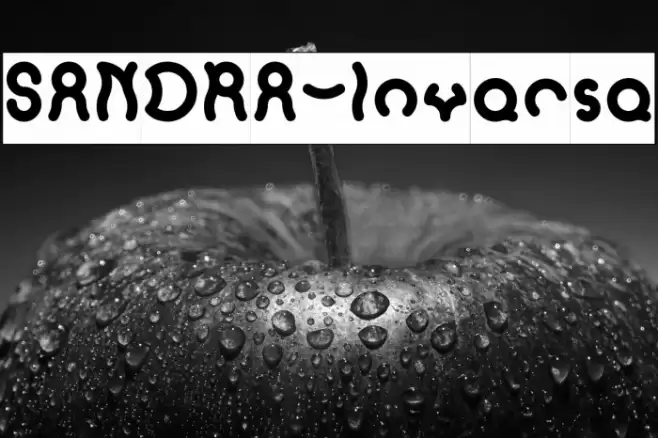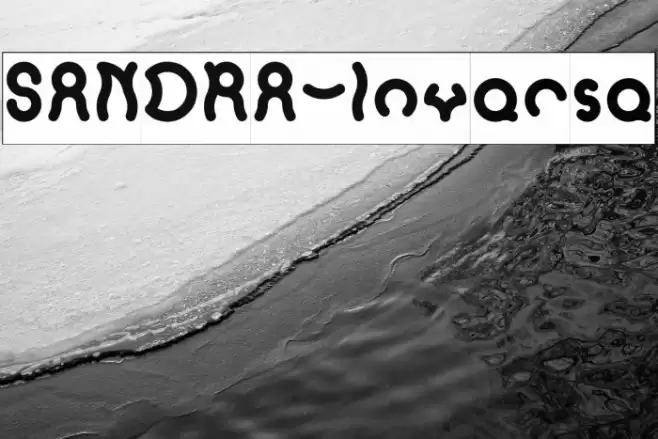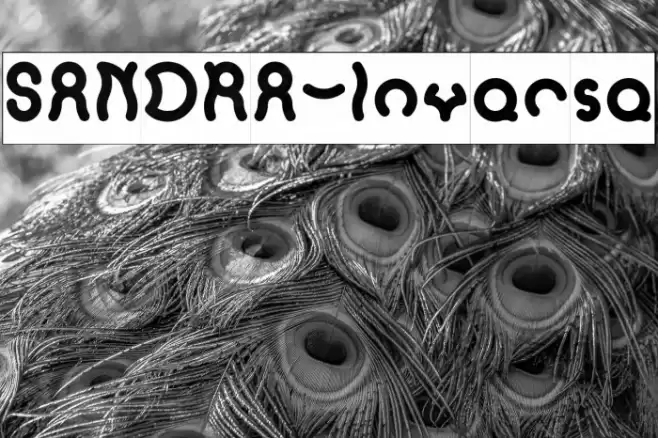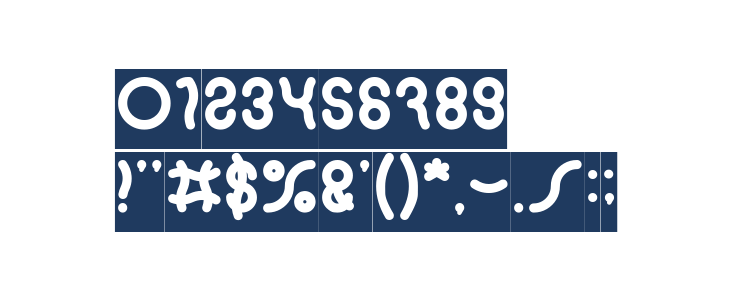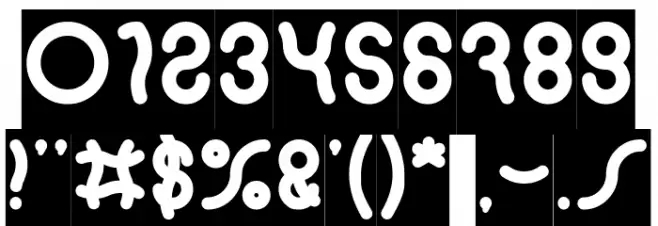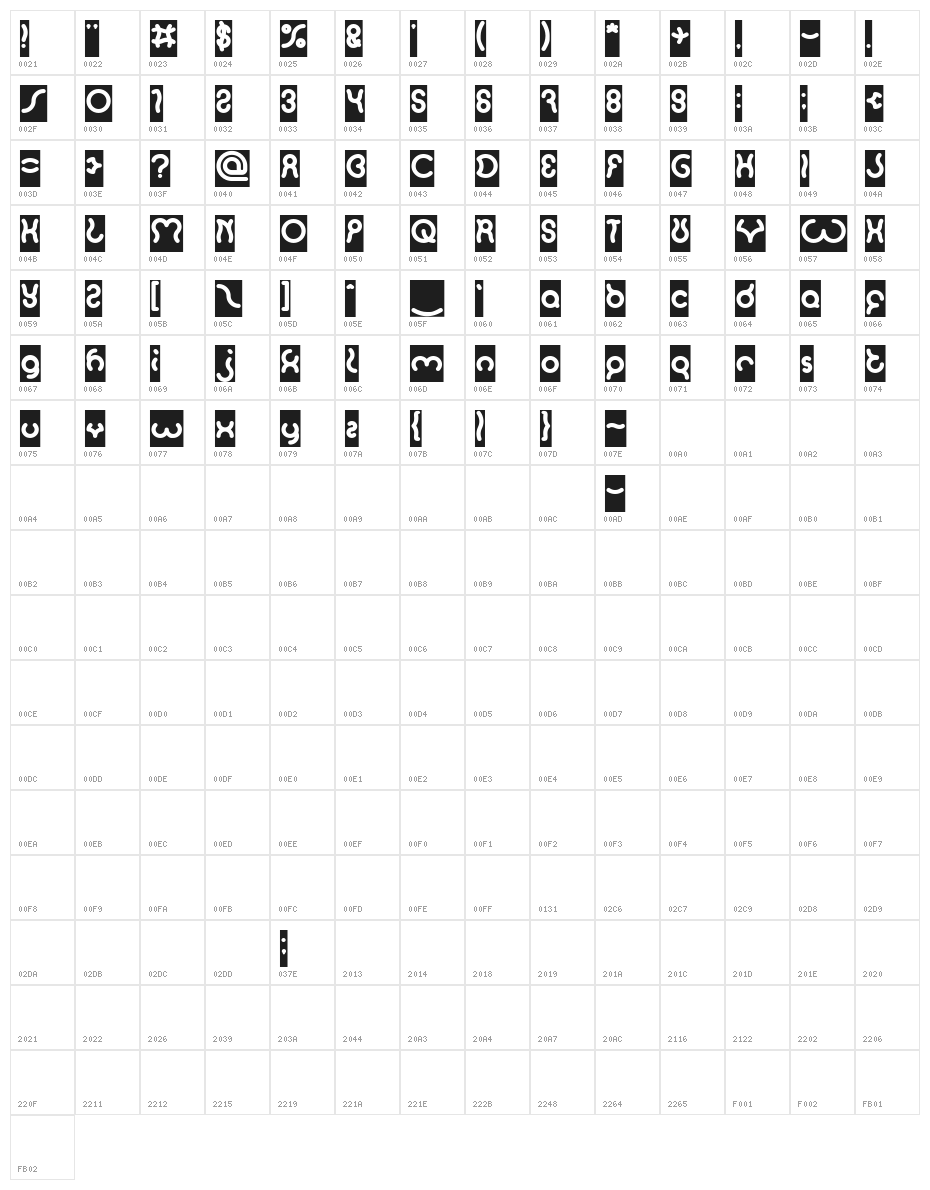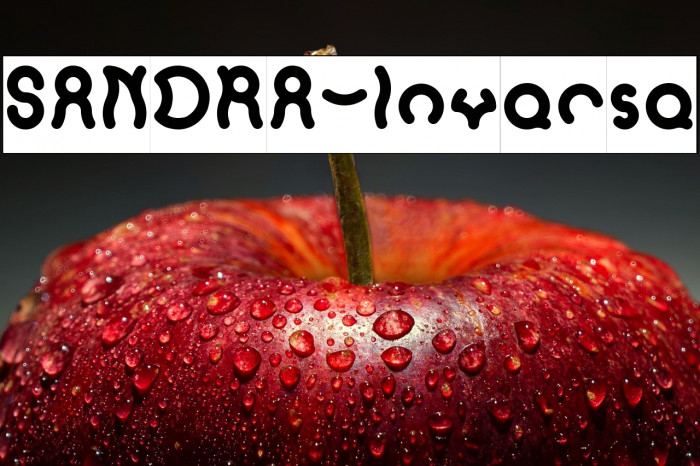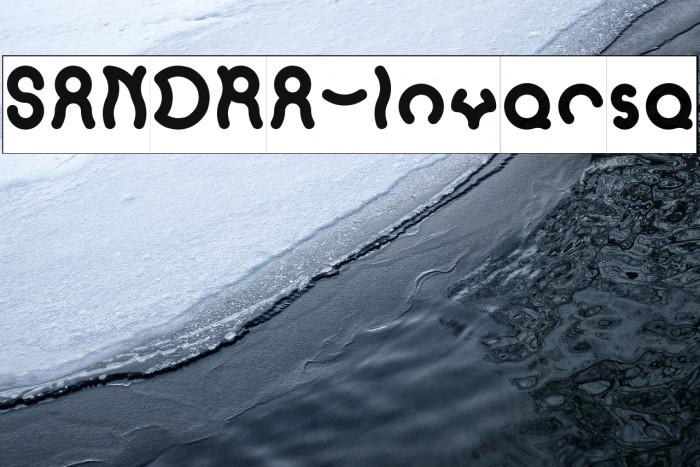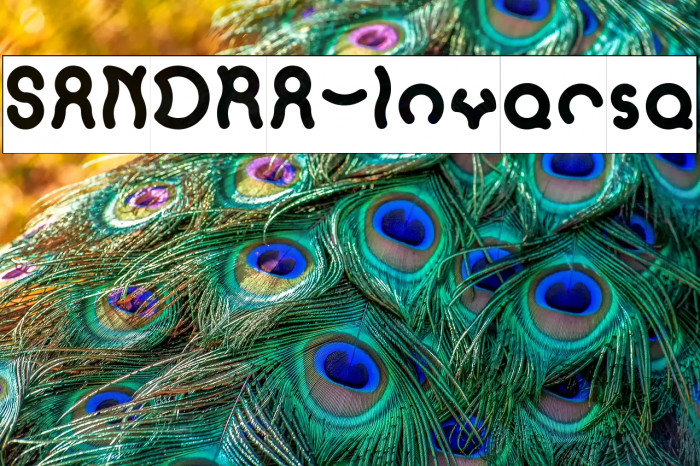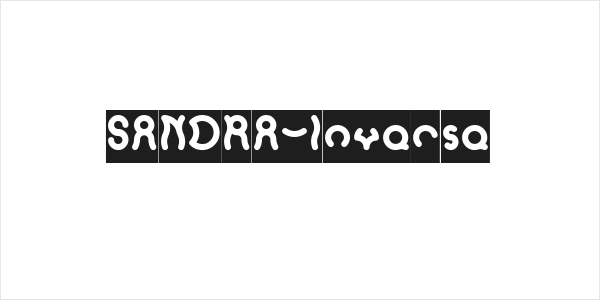
SANDRA-Inverse Font
SANDRA-Inverse Description
This font features a playful and bold design with a unique, bubbly appearance. Each character is crafted with thick, rounded strokes that create a whimsical and friendly vibe. The letters are highly stylized, with curves and loops that give them a dynamic and energetic feel. The font maintains a consistent thickness throughout, contributing to its cohesive and harmonious look. The numbers and special characters follow the same design principles, ensuring uniformity across all elements. This font is eye-catching and memorable, making it ideal for projects that require a fun and engaging aesthetic.
A playful, bold font with rounded, bubbly characters from Uncategorized fonts.
- Proposed Projects: Ideal for children's books, playful branding, party invitations, and creative posters.
- Overall Style: Playful
- Use Case: Logos, Posters, Invitations